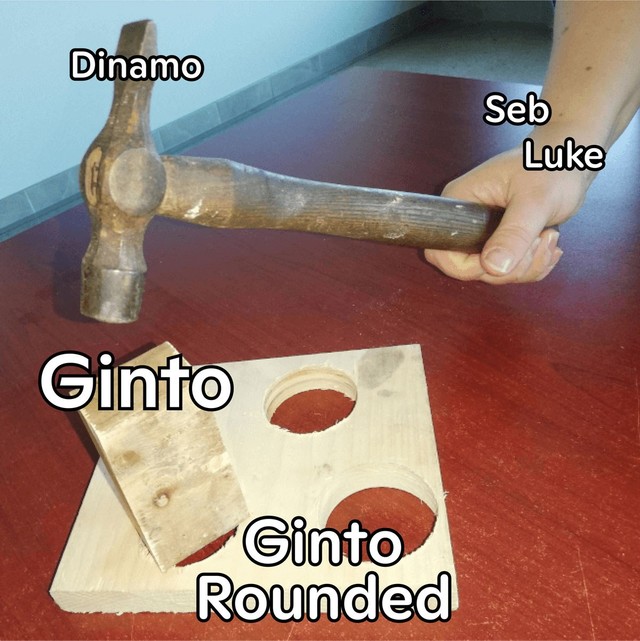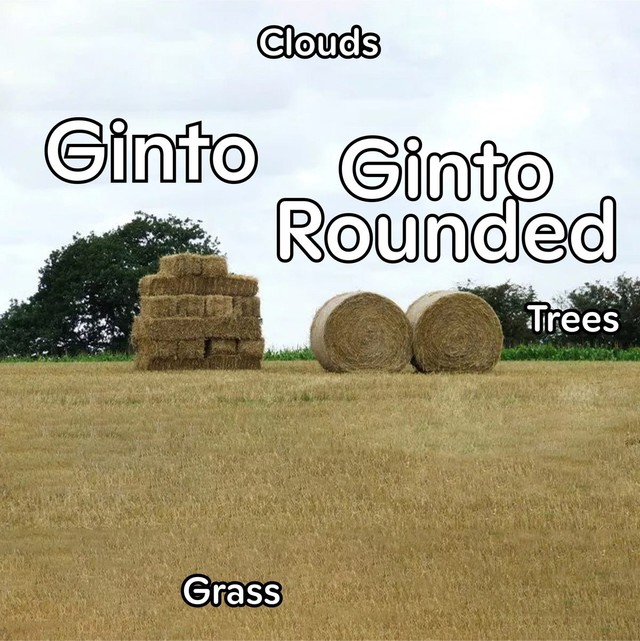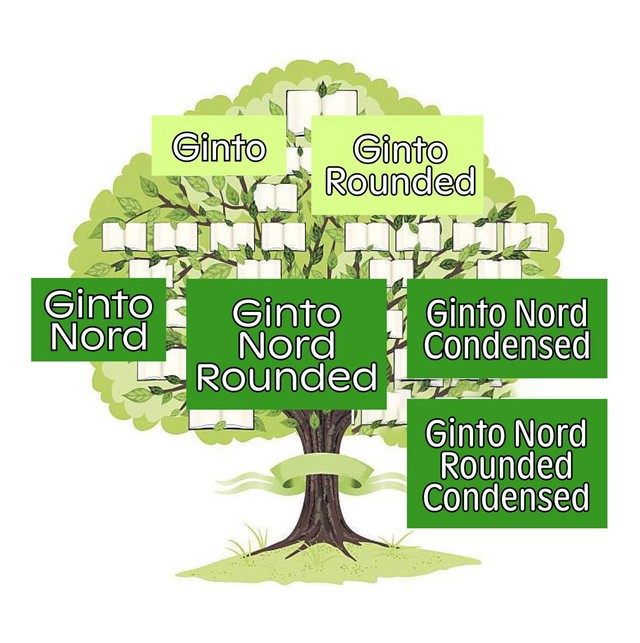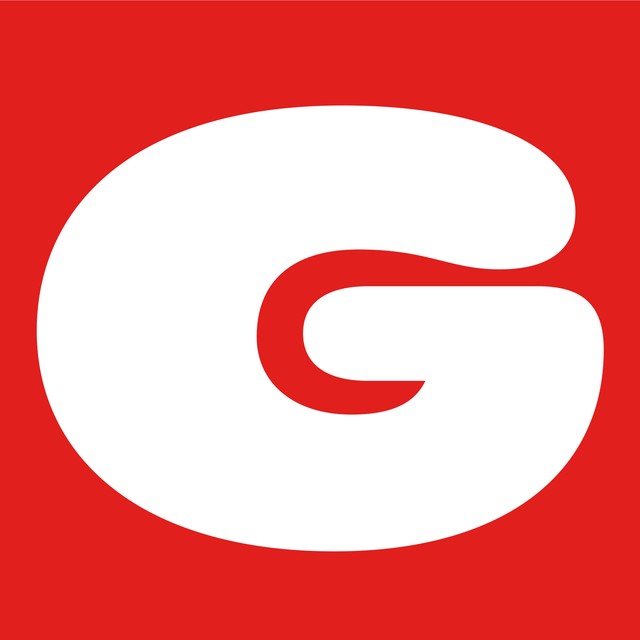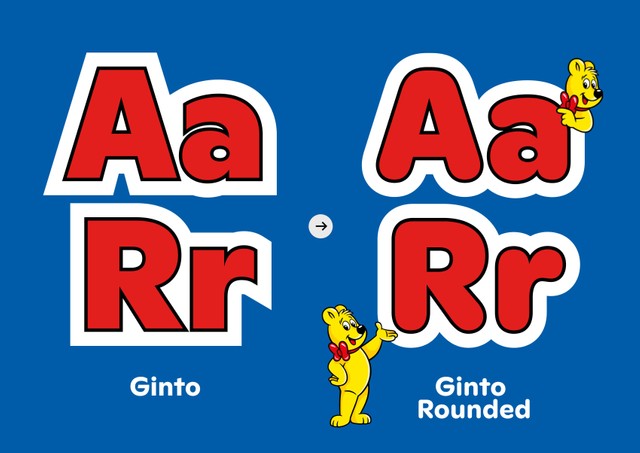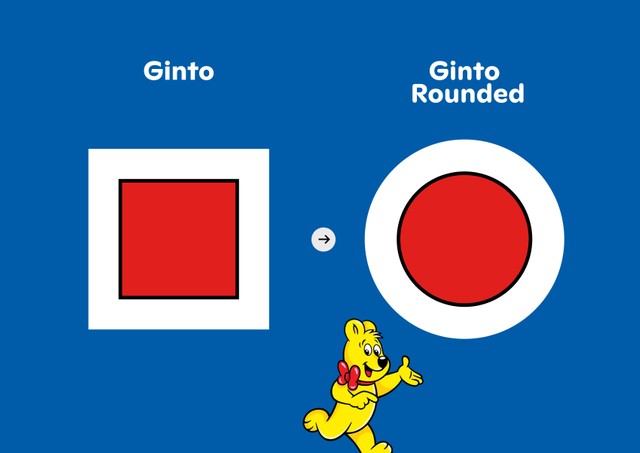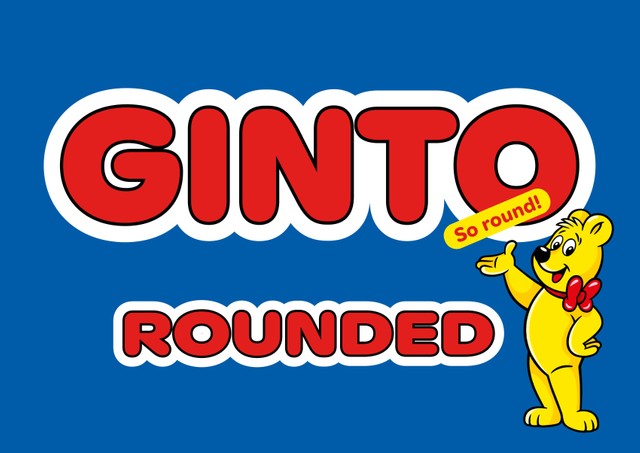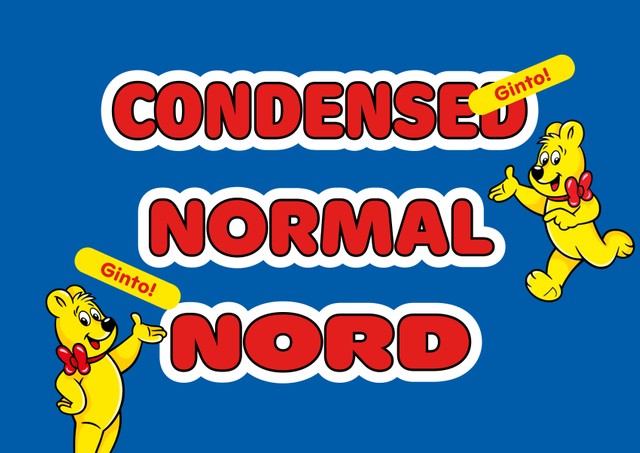
We have two new releases for you today. First, a rounded version of ABC Ginto, the Dinamo classic designed by our dear family member Seb McLauchan. Next, a mossy green edition of our best selling ABCap. So let’s dive in!!
New Typeface Release
Ginto Rounded is a geometric-humanist font of soft edges and playful forms. Like its non-rounded older cousins Ginto, Ginto Nord, and Ginto Nord Condensed, the Ginto Rounded subfamilies explore the tension between circular shapes and moments of sharpness.
Think of them like field recordings that capture baroque, animated styles from the ’60s and ’70s as they exchange whispers with stricter, “modern” proportion models (like that of Futura).
Today’s release marks the completion of the Ginto project. All rounded and non-rounded Ginto subfamilies create a full package of fonts, which can be combined to support or create visual tension with one another (I’d even say that an entire branding project could be completed with this toolbox alone).
The Complete Range
What’s the difference between Ginto Rounded and Ginto Nord Rounded, you ask?
Both families cover the same weight range, from Thin to Ultra with corresponding Italics. As often is the case with subfamilies, the difference between them comes down to their underlying skeleton and proportions. Standard Ginto Rounded comes with a regular x-height and compact lowercase characters, making it good for smaller text sizes. Ginto Nord Rounded has a higher x-height and wider characters – making it a good fit for chunky display contexts.
Core characters (in Ginto Nord Condensed Rounded)
Full character set (in Ginto Nord Rounded)
The new Ginto Rounded spin-off also includes Ginto Rounded Nord Condensed. There’s a Variable Font that bridges both Nords, allowing you to fine-tune width and find solutions for a variety of spatial contexts. NB: The non-rounded subfamilies are divided in exactly the same way. Let’s take one last look at the full Ginto family tree:
Ginto
Ginto Rounded
Ginto Nord
Ginto Nord Rounded
Ginto Nord Condensed
Ginto Nord Rounded Condensed
The Team
Seb McLauchlan began collaborating with us and designing ABC Ginto in 2016. Originally from New Zealand, he moved to the UK in 2015 and has been working in between type and graphic design ever since.
Seb started developing Ginto while researching sans-serif typefaces from the twentieth century, focusing on the shift from Modernist “purity” to the more dynamic styles of the post-phototypesetting period. He’s also the designer behind our ABC Marist and ABC ROM.
Alongside Seb, Luke Charsley worked on all the Ginto Rounded subfamilies, taking Seb’s initial sketches over the finish line. And Kasper Pyndt Rasmussen created the Nord Condensed family, with Addison Copas — a former student of Seb’s from Kingston School of Art in London — collaborating with our own Hugo Jourdan to update and produce the complete avalanche of fresh Ginto font files.
What are the Walters doing this time? Send us your caption to win!
Congratulations to our winners! You should all have your font files of ABC Alte Walter :)